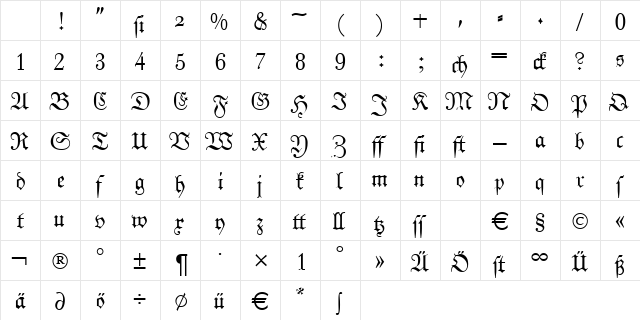
Blackletter-J790 draws on the rich tradition of blackletter calligraphy, with dense, angular strokes that evoke medieval manuscripts and old-world craftsmanship.
Font Pairing: Pair with a clean neutral sans-serif for body copy to let Blackletter-J790's character lead without overwhelming the composition.
Pro Tip: Reserve Blackletter-J790 for display and logo use - pair it with a clean sans-serif for body copy to prevent the composition from feeling oppressive.